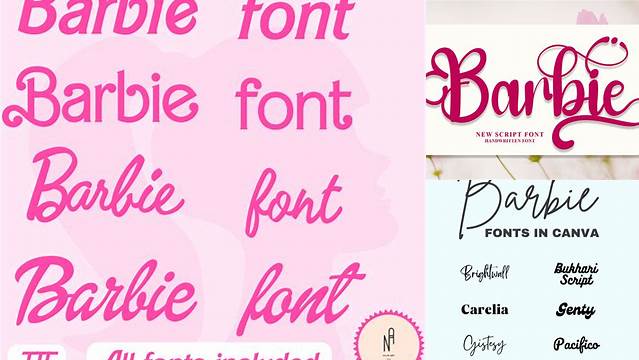
Barbie Font Canva: Find Free Fonts & Design Tips
Hey guys! Ever wanted to add that iconic Barbie touch to your designs? Well, you're in luck! Using a Barbie font on Canva is totally doable, and guess what? There are plenty of free options to choose from. Let's dive in and explore how you can bring that glamorous vibe to your projects. We will cover everything from identifying Barbie-esque fonts to actually using them in Canva, plus some tips and tricks to make your designs pop. Whether you're creating social media graphics, birthday invitations, or just having fun, the right font can make all the difference. So, grab your glitter pens (metaphorically, of course) and let’s get started!
Understanding the Barbie Font Aesthetic
Before we jump into Canva, let's quickly chat about what makes a font feel like Barbie. Generally, we're looking for fonts that are playful, feminine, and often have a touch of retro flair. Think bold, rounded letterforms, and a sense of fun! Script fonts, sans-serif fonts with a rounded edge, and even some display fonts can capture the Barbie essence. The key is to choose something that feels energetic and joyful. When you think of the Barbie font, what comes to mind? Is it the classic logo with its rounded, friendly letters, or maybe something more modern and chic? The Barbie brand has evolved over the years, and so has its visual identity. Today, you can find inspiration in everything from the original 1959 logo to the branding of the latest Barbie movie. The aesthetic is all about fun, fashion, and a touch of sparkle, so keep that in mind as you search for the perfect font.
To really nail that Barbie vibe, consider the overall design. It’s not just about the font itself, but also how you use it. Think about colors, backgrounds, and other design elements that complement the font and enhance the Barbie feel. Using a vibrant pink, of course, is a classic choice, but don’t be afraid to experiment with other bright and playful colors. Add some sparkle with glitter effects, or create a fun pattern with polka dots or stars. The goal is to create a design that’s eye-catching, memorable, and instantly recognizable as inspired by Barbie. Remember, Barbie is all about fun and creativity, so let your imagination run wild!
Experimenting with different fonts can also help you discover new and exciting ways to capture the Barbie aesthetic. Try pairing a bold, rounded font with a delicate script font to create a sense of contrast and visual interest. Or, use a simple sans-serif font for the body text and a more decorative font for the headings. The possibilities are endless! And don’t forget to play around with the font size, spacing, and kerning to fine-tune the look and feel of your design. A little bit of tweaking can go a long way in achieving the perfect Barbie font effect. So, go ahead and explore, have fun, and let your inner Barbie shine!
Finding Free Barbie-Inspired Fonts on Canva
Okay, let's get practical. Canva has a fantastic library of fonts, and you can find some awesome free Barbie font options with a little digging. Here's how:
- Search Keywords: Start by using keywords like "bubble font," "cartoon font," "rounded font," or "script font" in the Canva font search bar. These terms will help you narrow down fonts that have that Barbie-like quality.
- Explore Font Categories: Canva organizes fonts into categories. Check out categories like "Display" and "Script" for fonts that might fit the bill. Display fonts are often bold and attention-grabbing, while script fonts can add a touch of elegance and femininity.
- Look for Rounded Sans-Serif Fonts: Sans-serif fonts with rounded edges tend to feel friendly and approachable, making them perfect for a Barbie-inspired design. Pay attention to fonts like 'Quicksand', 'Nunito', or 'Baloo 2'. These are generally available for free and can be a great starting point.
- Check Out Font Bundles: Sometimes Canva offers font bundles or collections that include a variety of styles. These can be a great way to discover new and interesting fonts that you might not have found otherwise. Keep an eye out for bundles that include playful or whimsical fonts.
Remember, finding the perfect font is a bit like treasure hunting. It might take some time and experimentation, but the results will be worth it. Don’t be afraid to try out different fonts and see how they look with your overall design. And if you’re not quite satisfied with the free options, you can always explore Canva’s premium fonts or look for free font downloads from other sources. Just be sure to check the license agreement before using any font to make sure it’s suitable for your intended purpose.
Also, keep in mind that the Barbie font aesthetic is all about fun and creativity, so don’t be afraid to think outside the box. You might be surprised at what you discover! Maybe a font that you wouldn’t normally consider could be the perfect fit for your Barbie-inspired design. So, go ahead and experiment, have fun, and let your imagination run wild. And don’t forget to share your creations with the world! We’d love to see what you come up with.
Using Your Chosen Font in Canva
Alright, you've found a Barbie font (or a few!). Now, let’s get it into your Canva design:
- Start a New Design: Open Canva and create a new design. Choose the dimensions that suit your project, whether it’s a social media post, a presentation, or a poster.
- Add Text: Click on the "Text" tab in the left-hand menu and add a text box to your design. You can choose from a variety of pre-designed text styles, or simply add a heading, subheading, or body text.
Using a Barbie font on Canva is an awesome way to inject some fun and personality into your design projects. With a wide range of free fonts available, you can easily find the perfect one to match your vision. Remember to play around with colors, backgrounds, and other design elements to create a truly Barbie-inspired masterpiece. Whether you're designing for social media, invitations, or just for fun, the possibilities are endless. So go ahead, unleash your creativity, and let your inner Barbie shine! Happy designing, everyone!